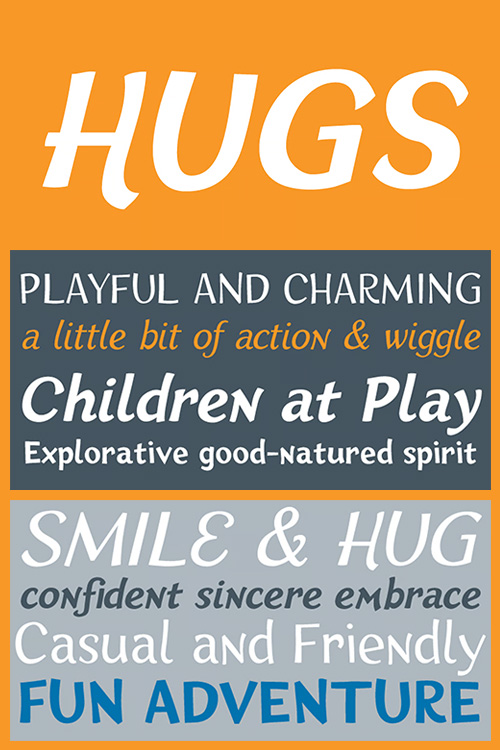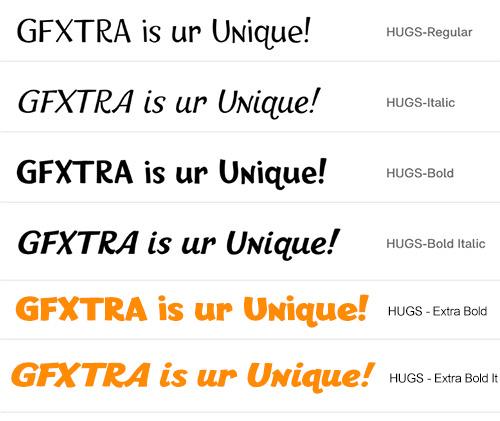
- HUGS is a font inspired by children at play and explorative good-natured spirit. With a bit of a bounce and a whole lotta whimsy this headline font has a hand-drawn charm and a wiggly lightheartedness. Originally created for a great American diaper company for use in coupons and packaging, HUGS also translates nicely to the screens of modern devices.